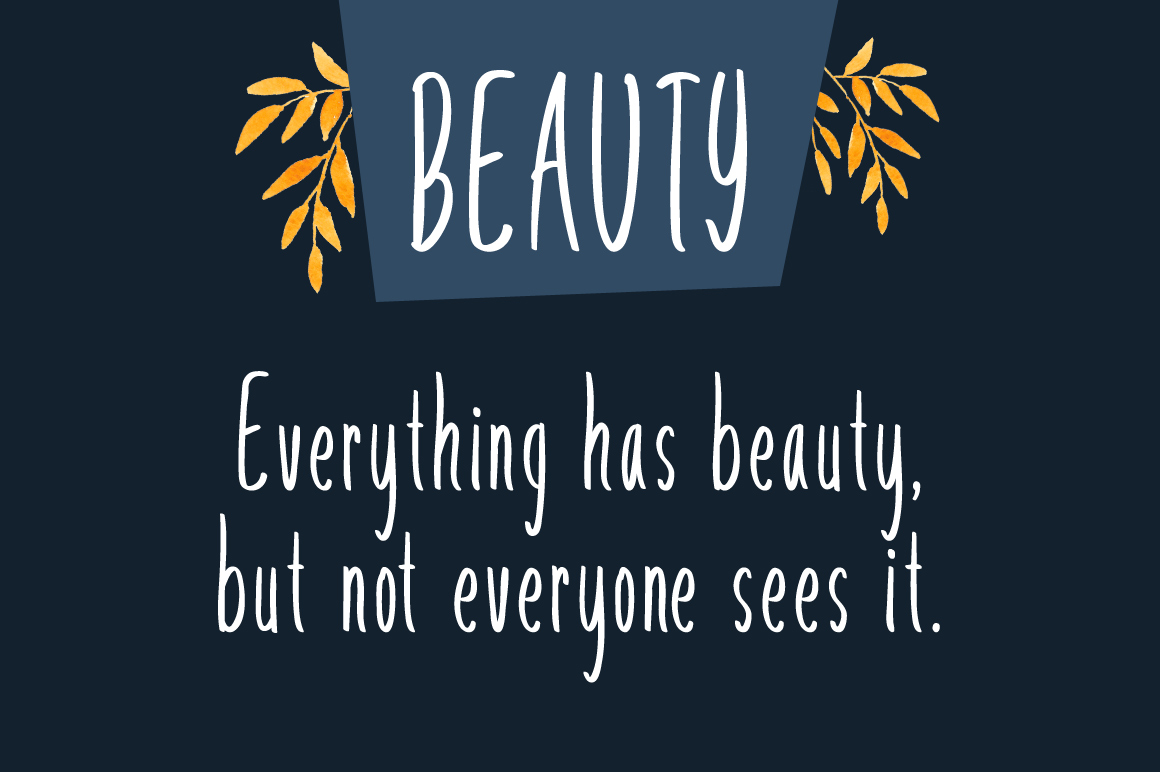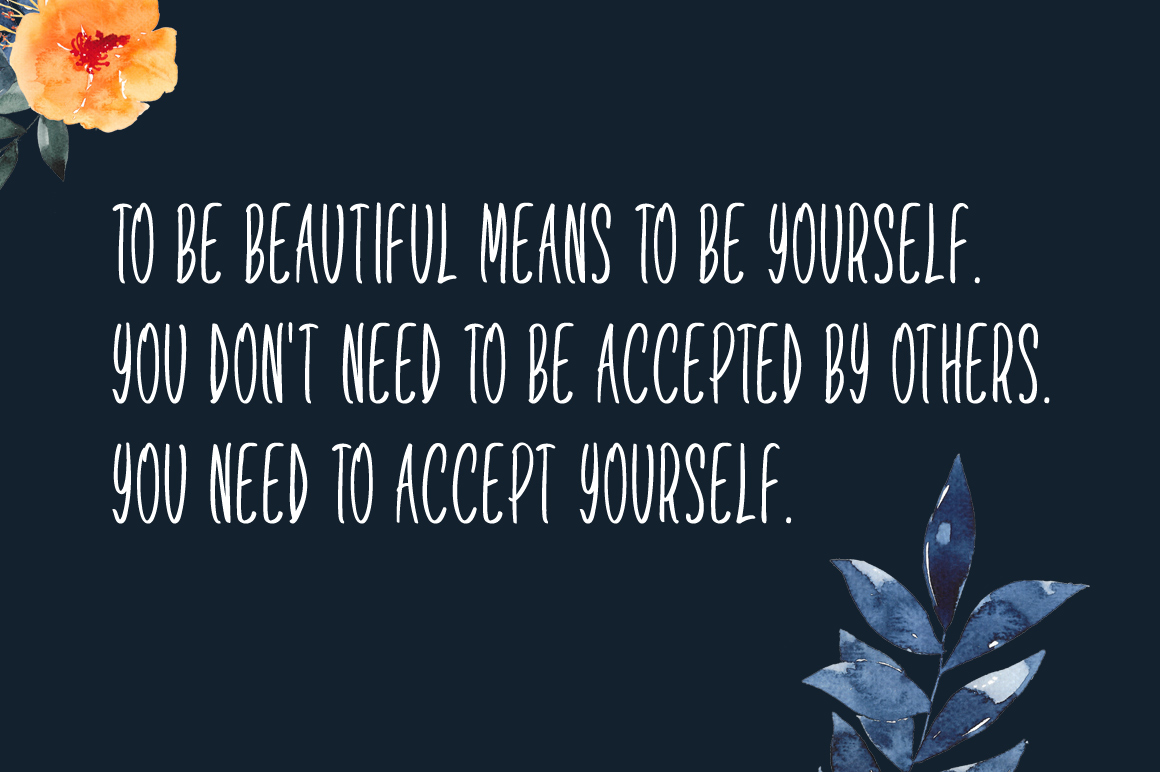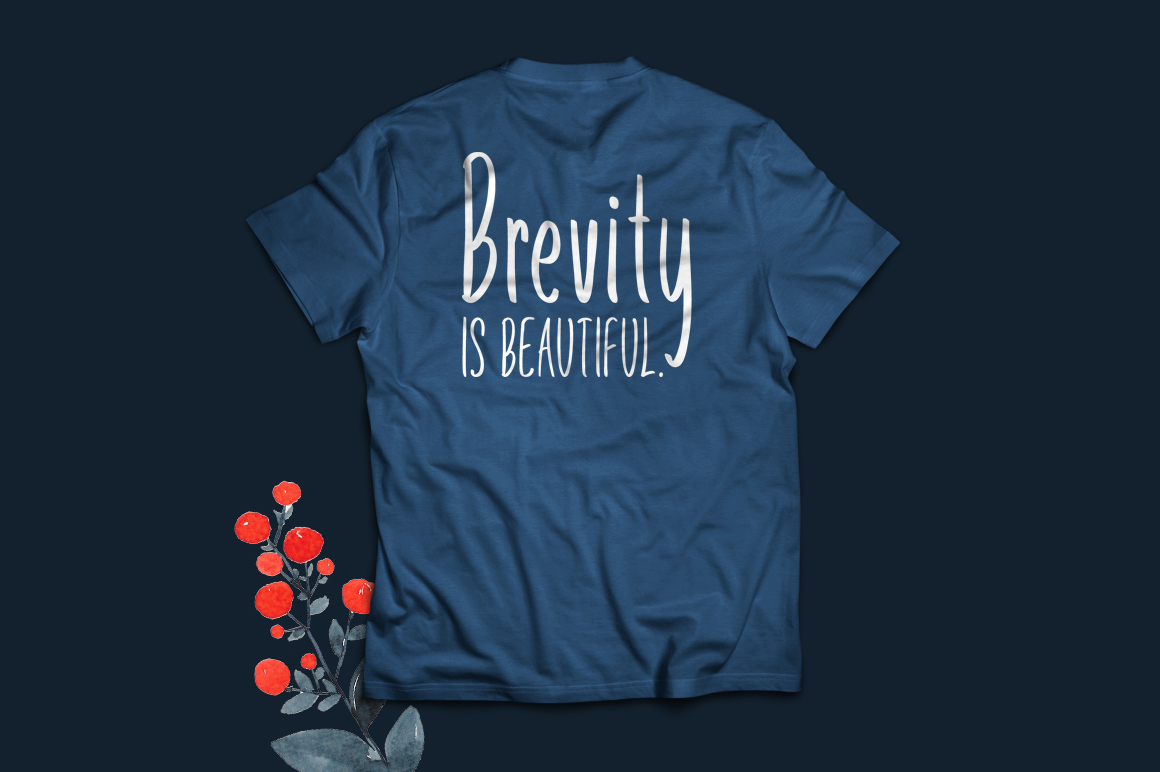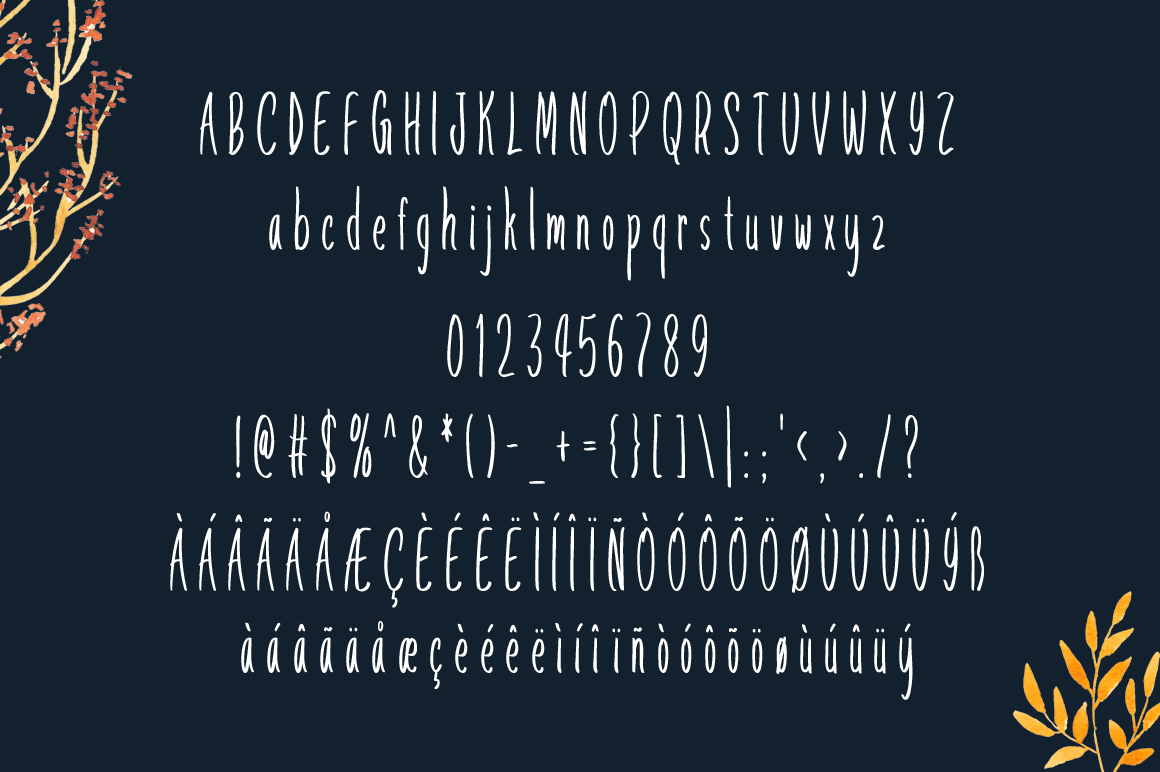
HomeScript FontsStay Beautiful Font Script Fonts Stay Beautiful Font FacebookXPinterestWhatsApp Stay Beautiful Font Poster 2 Stay Beautiful Font Poster 3 Stay Beautiful Font Poster 4 Stay Beautiful Font Poster 5 About Stay Beautiful Font Stay Beautiful, a simple but elegant handwritten script. Works great for apparel and other type of designs. DOWNLOAD ON CREATIVE FABRICAThis font is sold and delivered by Creative Fabrica. Font Canyon may earn a commission if you buy through this link. People also explored Satimela Font Christmas Ginger Font Animal Font Breakaway Sours Font Sandiago Font Olive Font The Charlotte Font Rexako Font 323 0 TagsStay Beautiful Font Previous articleBosleya FontNext articleViolette Font LEAVE A REPLY Cancel reply Comment: Please enter your comment! Name:* Please enter your name here Email:* You have entered an incorrect email address! Please enter your email address here Website: Save my name, email, and website in this browser for the next time I comment. Personal Use Free Sea Gardens Personal Use Free Read more about this font Broodfath Personal Use Free Read more about this font Beautiful Personal Use Free Read more about this font Roland Personal Use Free Read more about this font BLOG The 10 Best Handwriting Fonts to Add Personality to Your Designs 10 of the Best Handwriting Fonts for Adding Personality to Your Designs There will undoubtedly be no other better choice than handwriting fonts to give... Using Fonts in Digital Marketing: Tips to Strengthen Your Brand Identity Free Fonts Risk: Why Free Fonts Can Be Dangerous for Designers Transform Your Website: Elevate Your Typography with 7 Best Web Font Generators